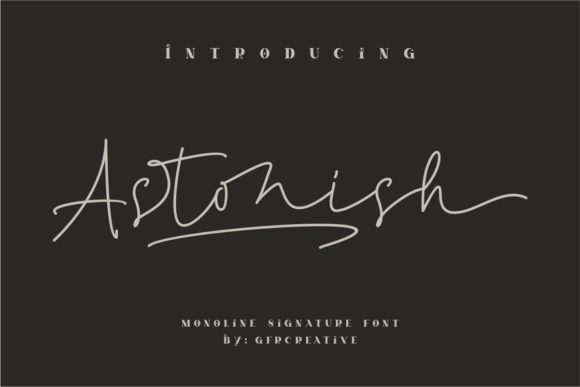
The Designer’s Delight: A Deep Dive into the Astonish Font
I’ll never forget the time I was working on a branding project for a boutique client, and I was stuck on finding the perfect font. The client wanted something that exuded elegance, sophistication, and a touch of whimsy. I scoured the internet, tried out countless fonts, but nothing seemed quite right. That was until I stumbled upon the Astonish font. ✨ It was love at first sight! The fluid, handwritten strokes and charming ligatures instantly captured the essence of my client’s brand. In this article, I’ll share my experience with the Astonish font, its features, and how to make the most of it in your designs.
An Honest Review of Astonish Font
- ✨ Timeless and versatile: Astonish is a beautifully crafted handwritten font that works well for a wide range of design projects, from logos and branding to quotes and social media graphics.
- ✅ Excellent for eye-catching designs: The font’s unique character and charm make it perfect for creating eye-catching logos, branding materials, and quotes that grab attention.
While Astonish is an excellent font, there are a few things to keep in mind: ⚠️
- 🤔 Limited use in very formal contexts: Due to its handwritten nature, Astonish might not be the best choice for very formal or corporate designs, such as financial reports or academic papers.
- ⚠️ Requires some exploration to master: With so many glyphs and swashes available, it may take some time to get familiar with the font’s features and learn how to use them effectively.
Astonish was designed with the intention of creating a timeless, elegant handwritten font that would inspire creatives to produce stunning designs. The designer aimed to craft a font that was both versatile and charming, with a unique character that would make it stand out in any design project. 💫
Q: Is Astonish suitable for body text or long-form content?
A: While Astonish is an excellent font, it’s primarily designed for display purposes, such as headings, titles, and short paragraphs. For body text or long-form content, you may want to consider a font with better readability and legibility.